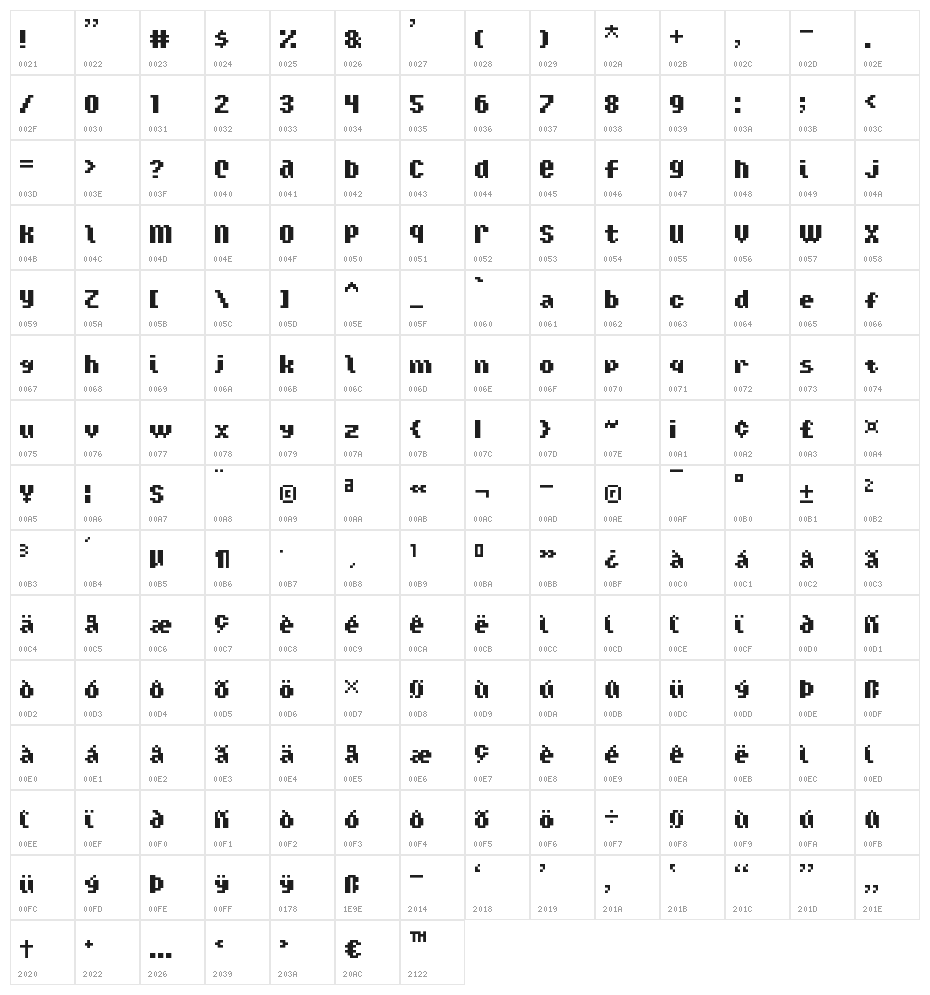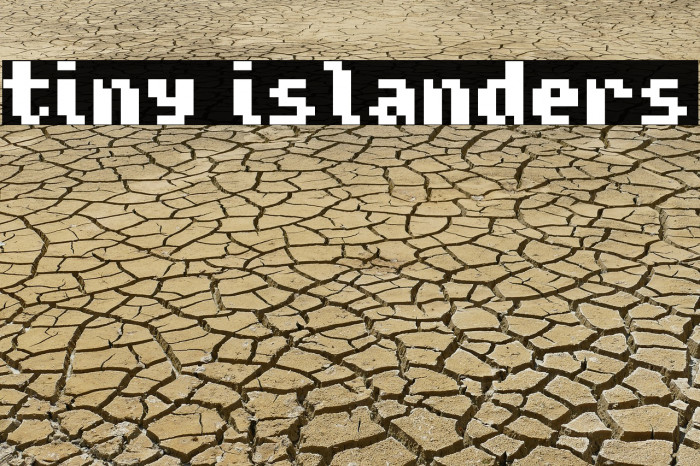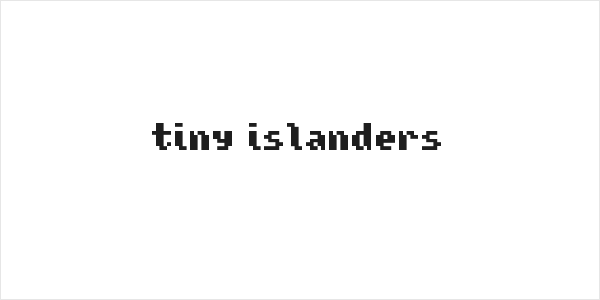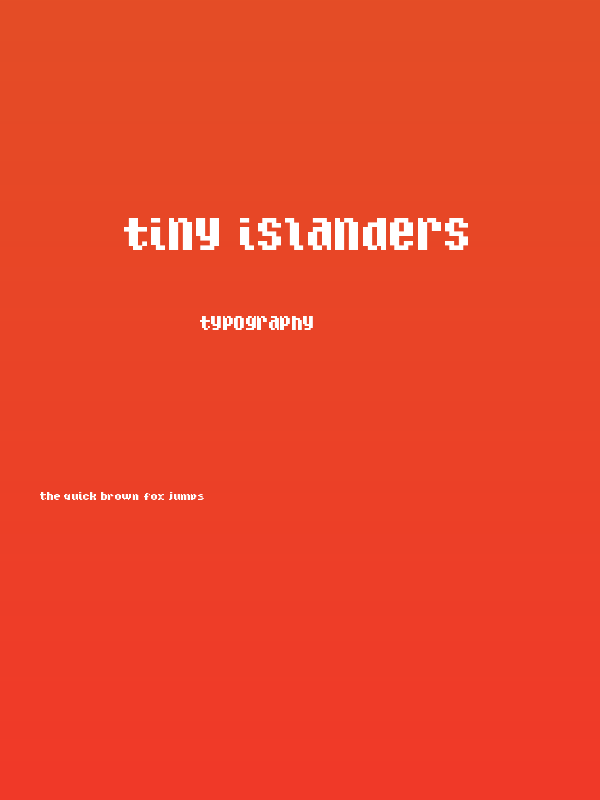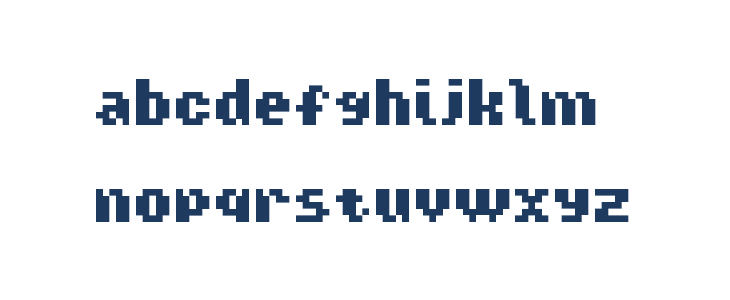
Tiny Islanders Font
Tiny Islanders Description
This font exhibits a bold, pixelated style reminiscent of early digital or video game typography. The characters are blocky and geometric, with uniform stroke widths that create a cohesive and structured appearance. The uppercase and lowercase letters maintain a consistent height, contributing to a monospaced feel, although the font is not strictly monospaced. The numerals and special characters follow the same design principles, ensuring visual harmony across all glyphs. This font's retro aesthetic is both nostalgic and modern, making it suitable for projects that aim to evoke a sense of classic digital design.
| Overall Style | Retro, Digital |
| Use Case | Headlines, Logos, Digital Art |
| Proposed Projects | Ideal for video game design, retro-themed posters, digital art projects, and any creative work that requires a nostalgic digital look. |